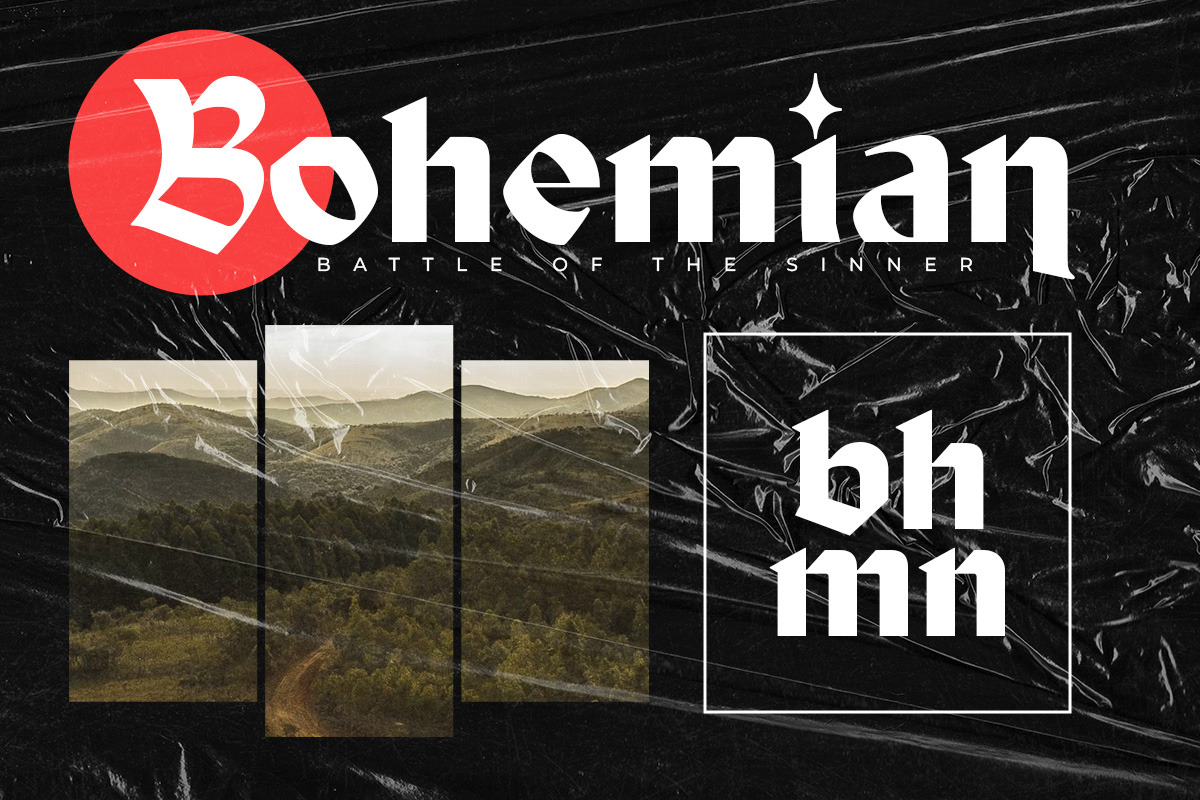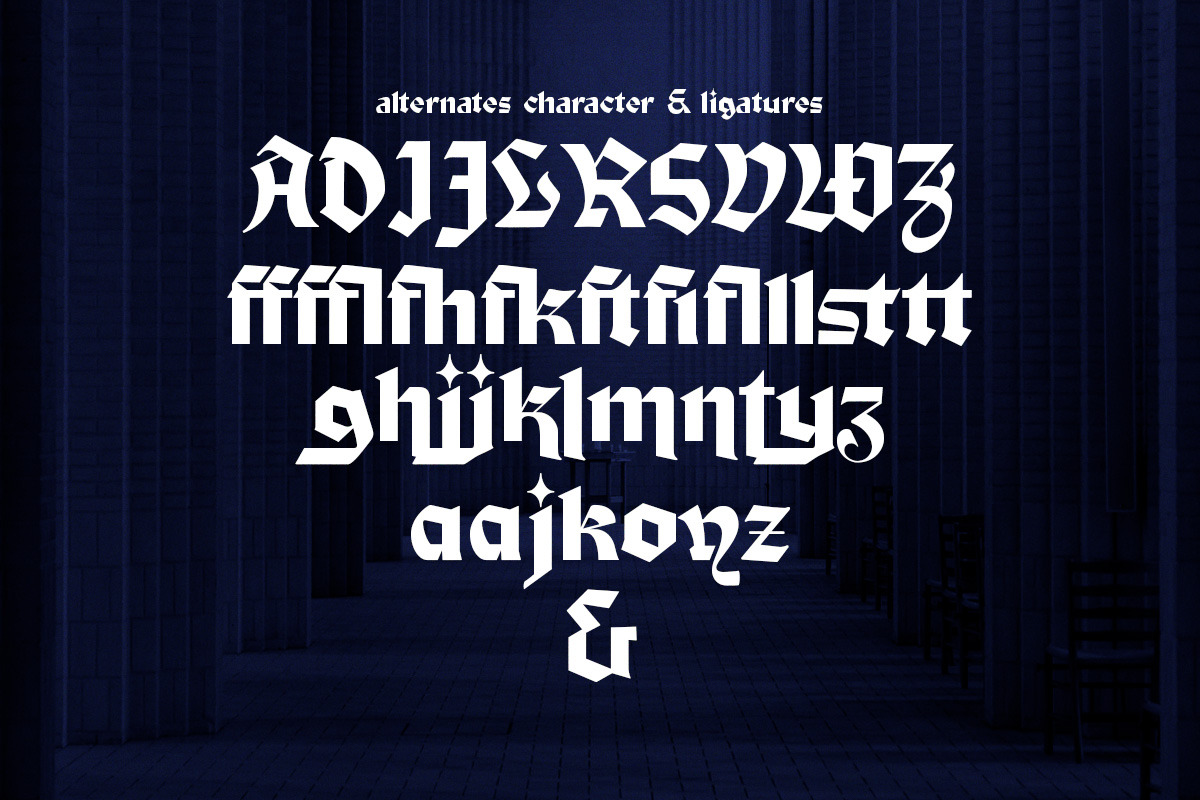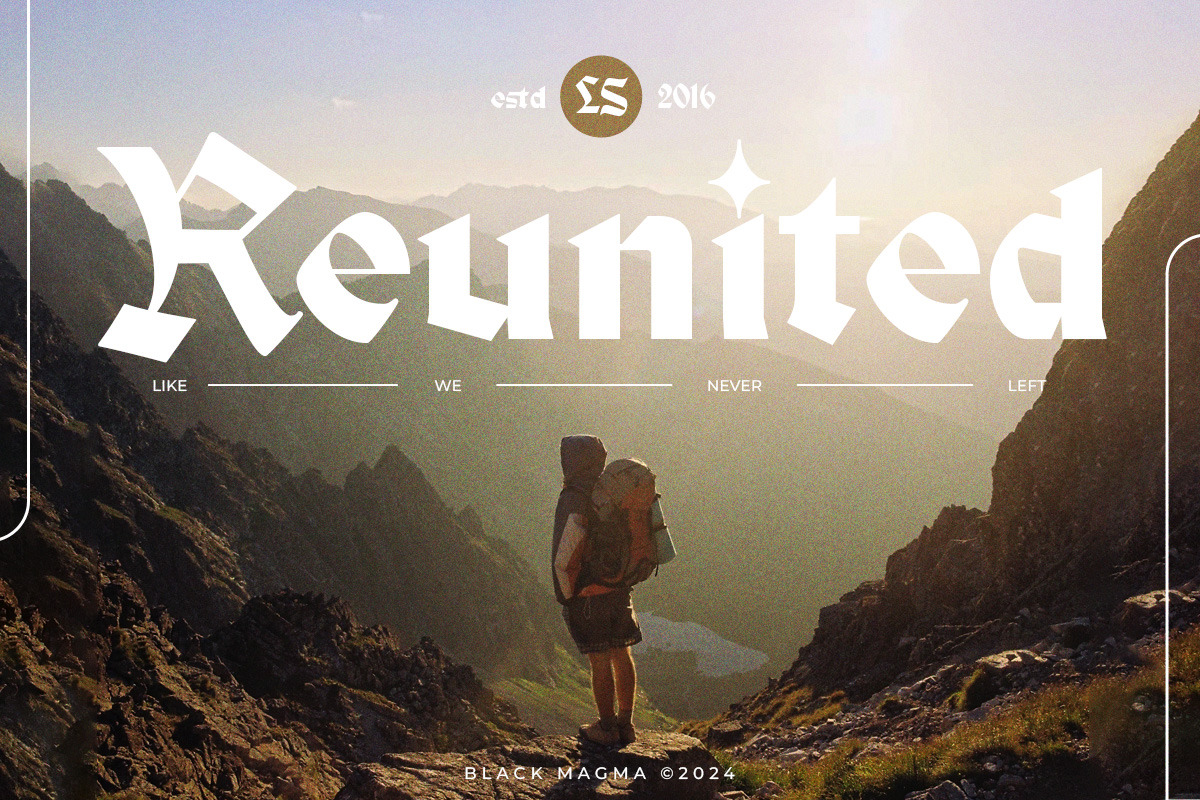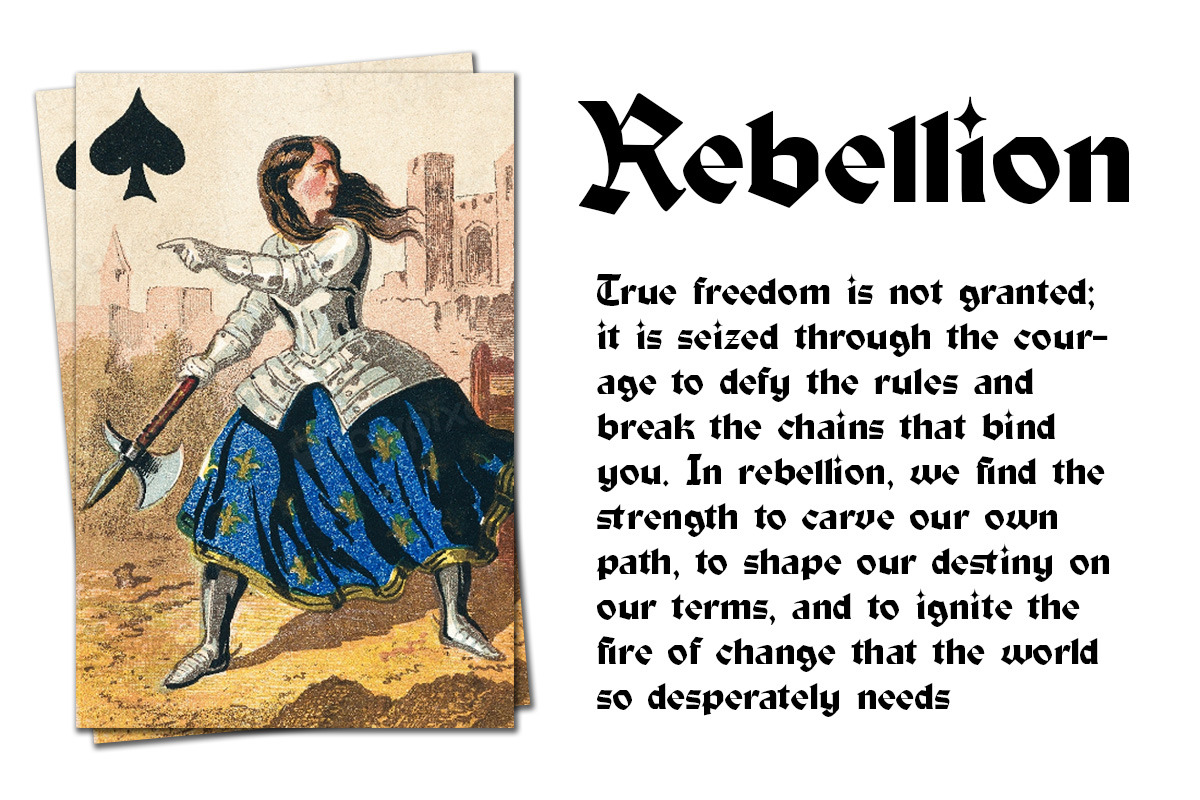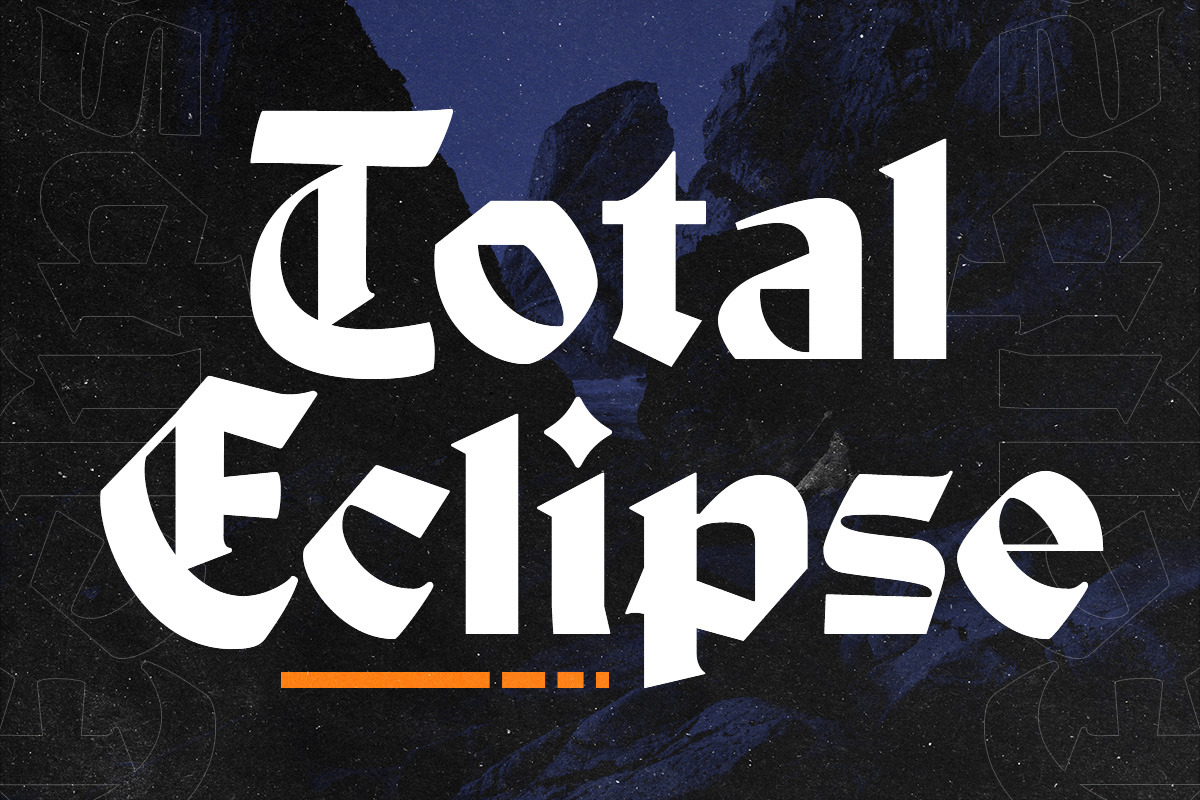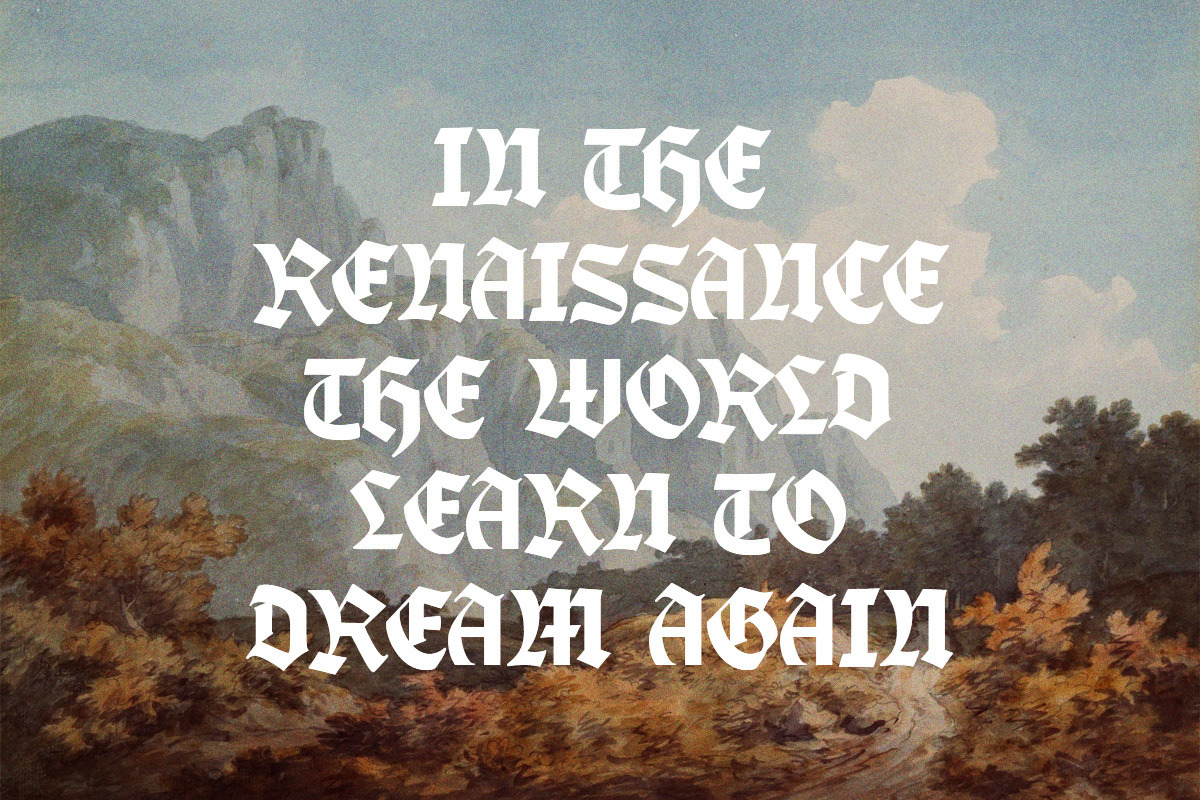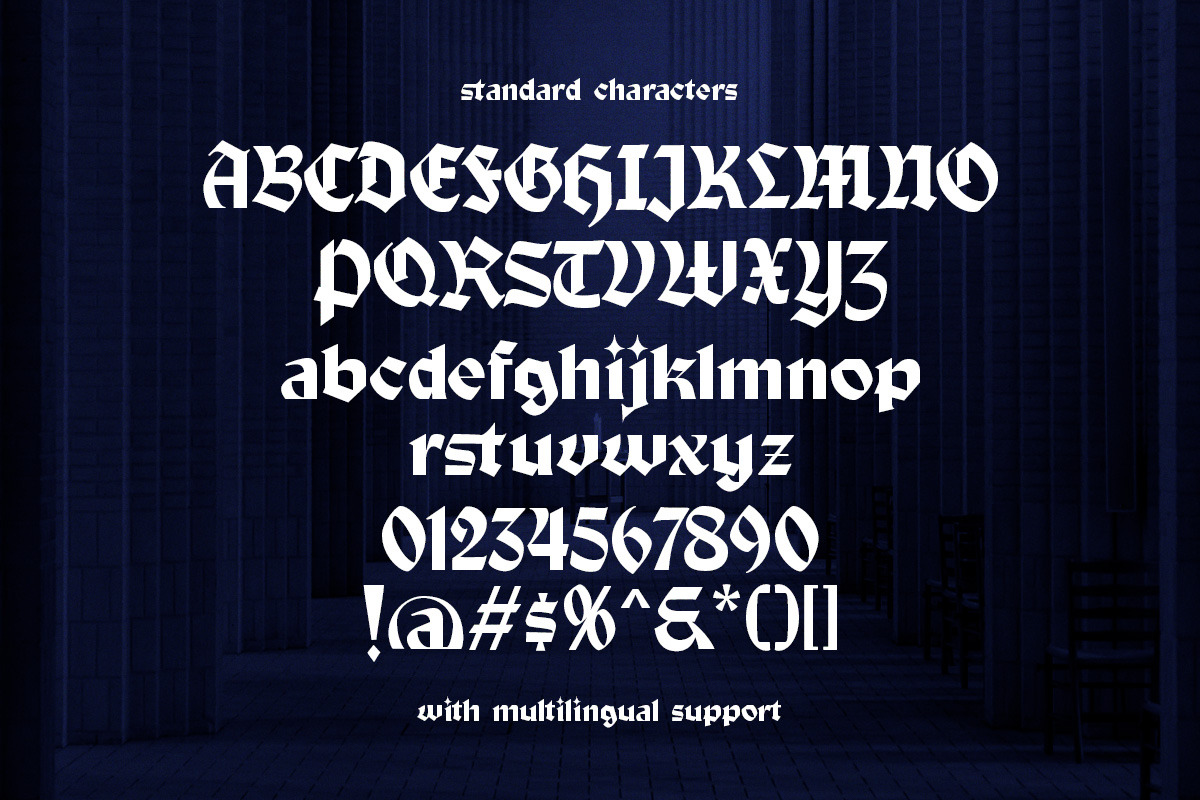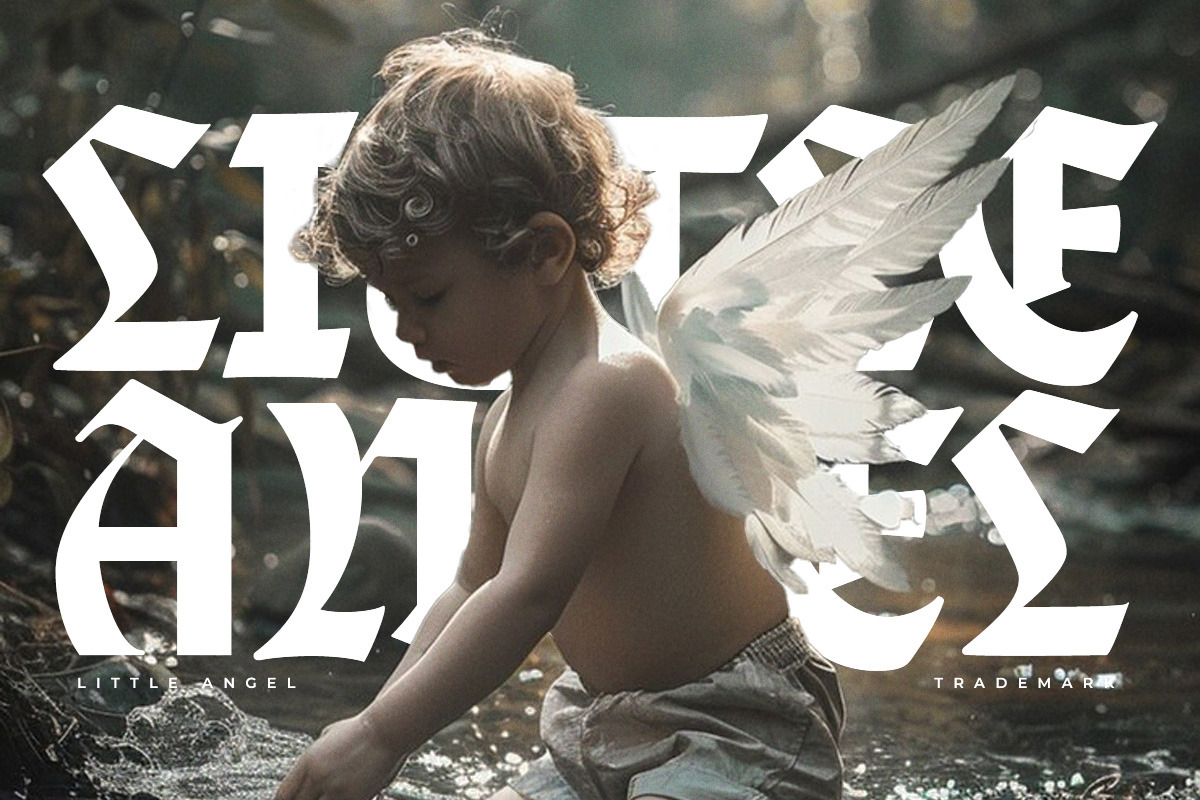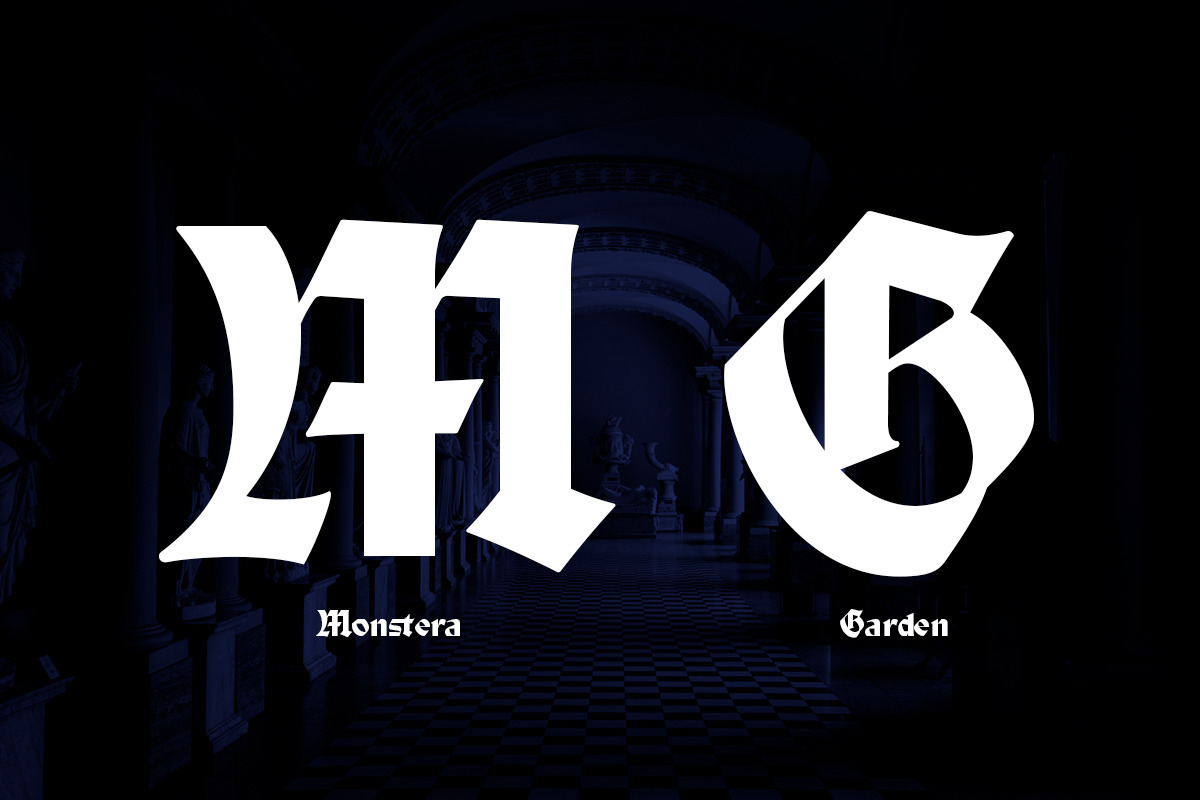
Black Magma Modern Blackletter
Black Magma is a contemporary take on the traditional blackletter style, combining boldness with readability. Its refined yet organic design makes it versatile for both modern and classic applications. Whether you're working on branding, posters, book covers, packaging, or digital art, Black Magma adds a striking and timeless elegance to your projects, while maintaining clear legibility across all platforms.